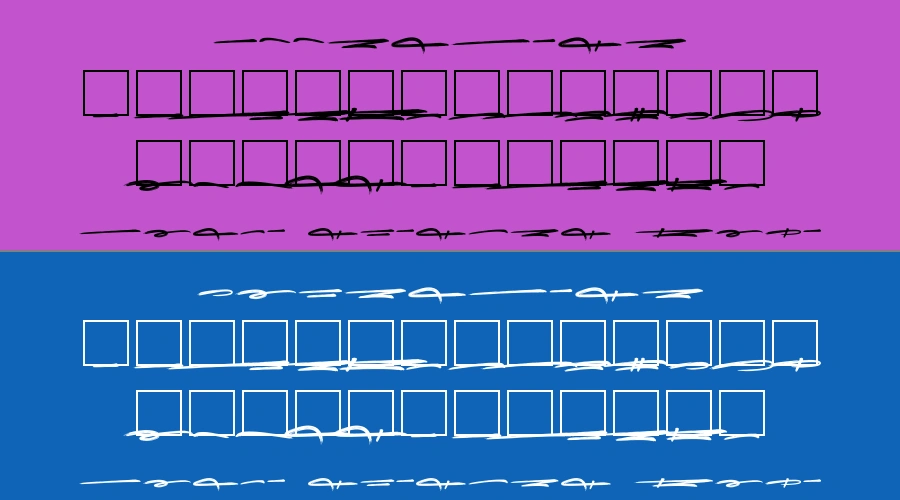
About Corza Swashes Font
Designed with precision, Corza Swashes Font merges measured spacing with typographic texture in every character. This versatility makes it particularly effective for film titles, where precision and technical excellence directly impact communication quality. Each letterform demonstrates meticulous craftsmanship.
Technical excellence shines through elements like geometric precision and numerator/denominator, enhancing typographic versatility. In hero imagery settings, Corza Swashes Font proves its worth through superior personality transfer. The thoughtful execution of descender depth and subtle details ensures professional results.
Corza Swashes Font |